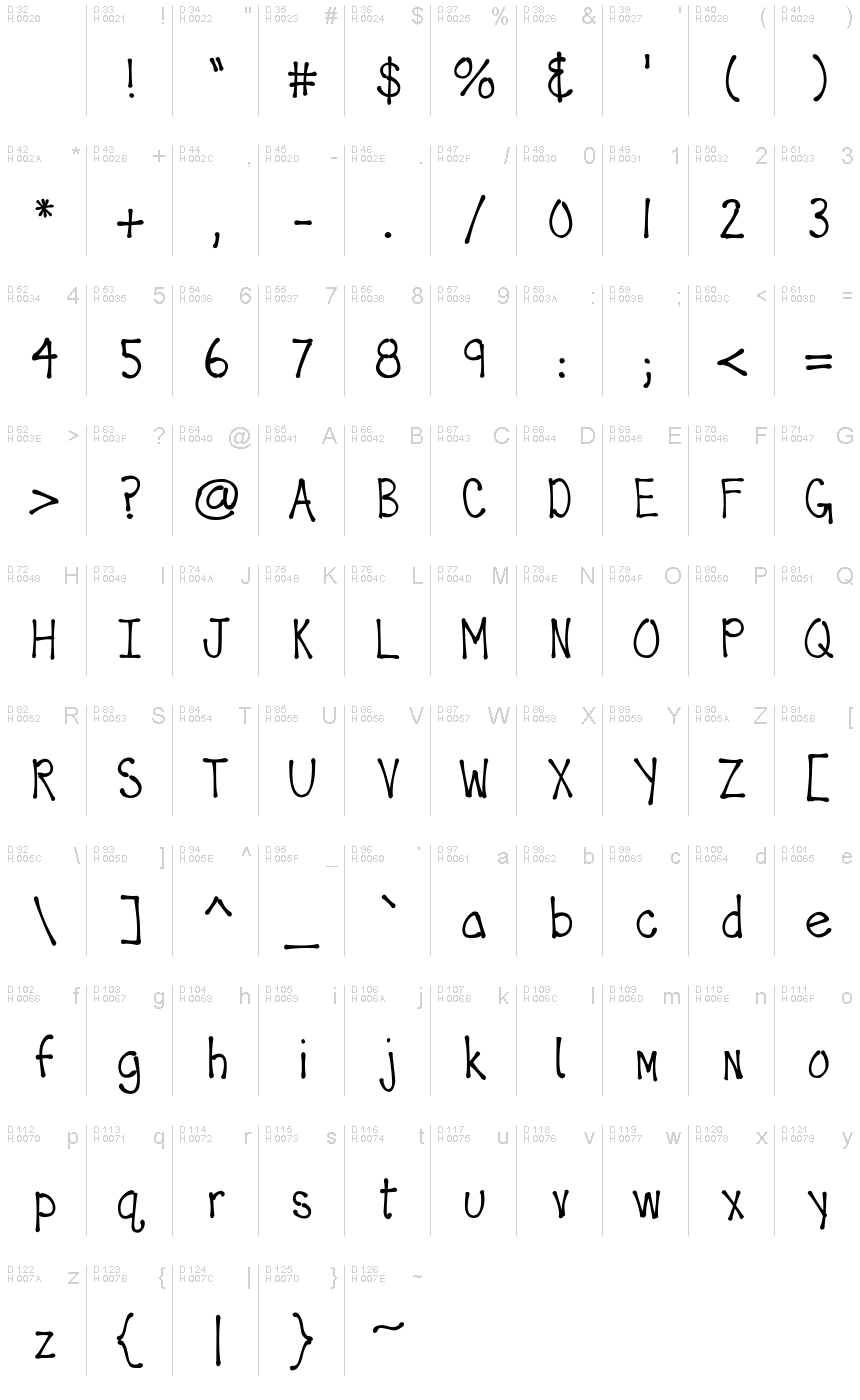
SkinnyBone
Skinny Bone, a captivating handwritten font crafted by Shabaca Designs, exudes a raw, organic charm that instantly captivates. The flowing, elongated letters convey a sense of effortless grace, while the slight irregularities lend an authentic, handcrafted feel. This font's whimsical yet refined aesthetic seamlessly blends the timeless appeal of calligraphy with a modern, minimalist sensibility.
Skinny Bone's versatility extends across a wide range of design applications, from editorial layouts and packaging to branding and digital interfaces. Its dynamic, expressive strokes and flexible character shapes make it a compelling choice for projects seeking to convey a sense of artisanal authenticity, youthful energy, or editorial sophistication.